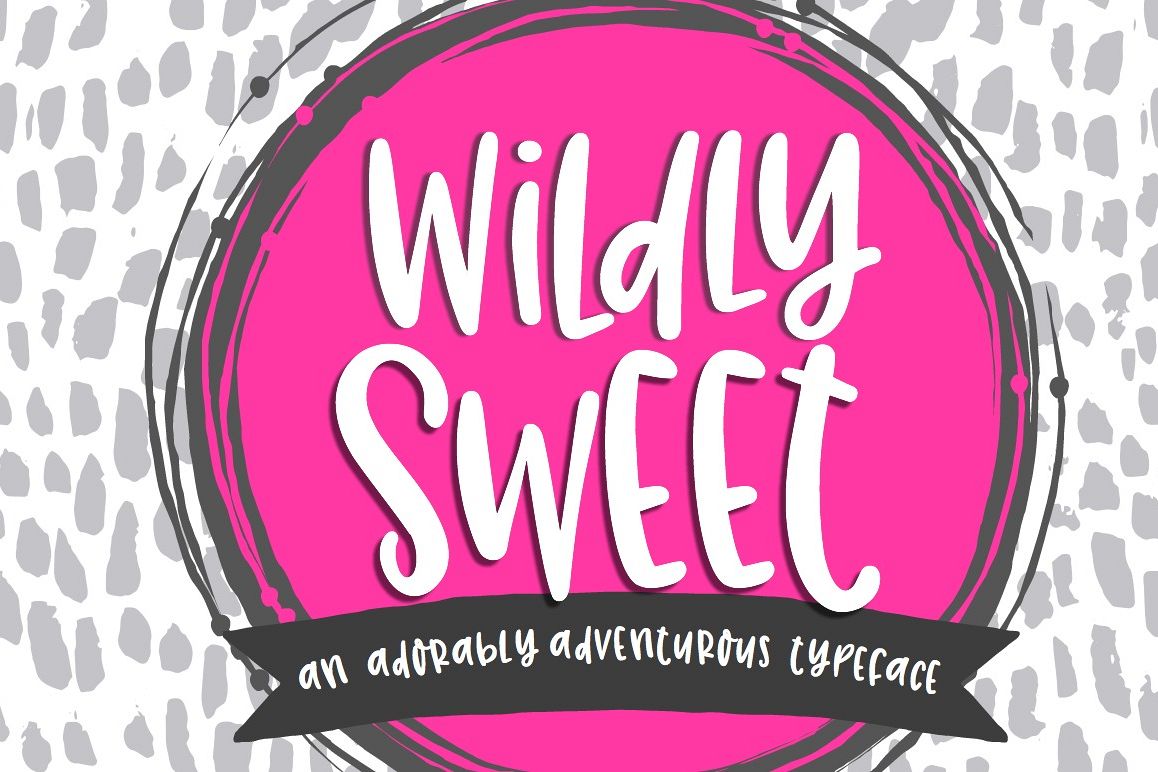
Wildly Sweet Handwritten Font
Wildly Sweet is a hand lettered typeface that is bursting with personality!  It includes Latin extended characters to support most European languages, as well as a handful of ligatures!